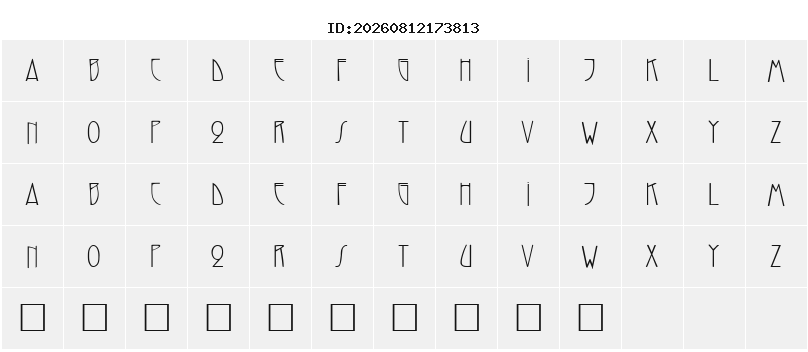
Reynolds Preview
• Font Name: Reynolds
• Font ID: Altsys Fontographer 3.5 Reynolds Regular
• Full Font Name: Reynolds Regular
• Version: Altsys Fontographer 3.5 8/1/92
• PostScript Name: ReynoldsCaps
• Character Count: 145
About Reynolds.ttf
Reynolds.ttf is a modern, elegant sans-serif font designed for ultimate readability and visual harmony. Perfect for branding, headlines, web design, and print materials.